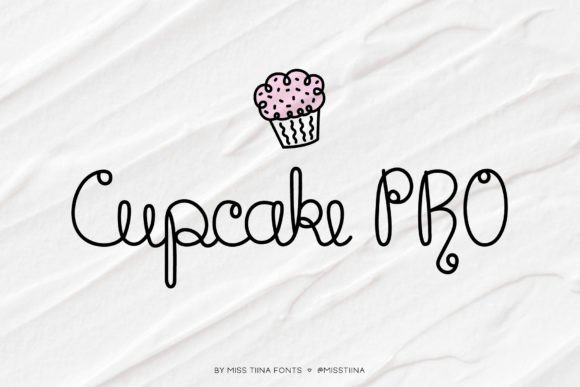
In a world brimming with digital monotony, Cupcake Pro Font emerges as a refreshing burst of handwritten charm. This enchanting script font, lovingly crafted by Miss Tiina, possesses an innate ability to transform the ordinary into the extraordinary, leaving an indelible mark of personality and warmth in its wake.
Cupcake Pro Font is not merely a collection of letters; it is an invitation to embark on a sensory journey where the written word dances with grace and fluidity. Its whimsical curves and playful flourishes evoke feelings of nostalgia, reminding us of cherished handwritten notes and the warmth of childhood memories.
Unlike conventional fonts that exude an air of formality and rigidity, Cupcake Pro Font embraces the beauty of imperfection. Its organic lines and subtle variations capture the essence of human touch, injecting a sense of authenticity and relatability into your designs. Whether you're crafting a heartfelt greeting card, designing a whimsical logo, or adding a personal touch to your social media posts, Cupcake Pro Font is your perfect companion.
With its versatile nature, Cupcake Pro Font effortlessly adapts to a myriad of design aesthetics, from the playful and whimsical to the elegant and sophisticated. Its ability to transcend boundaries makes it an invaluable asset for designers seeking to create truly captivating visuals.